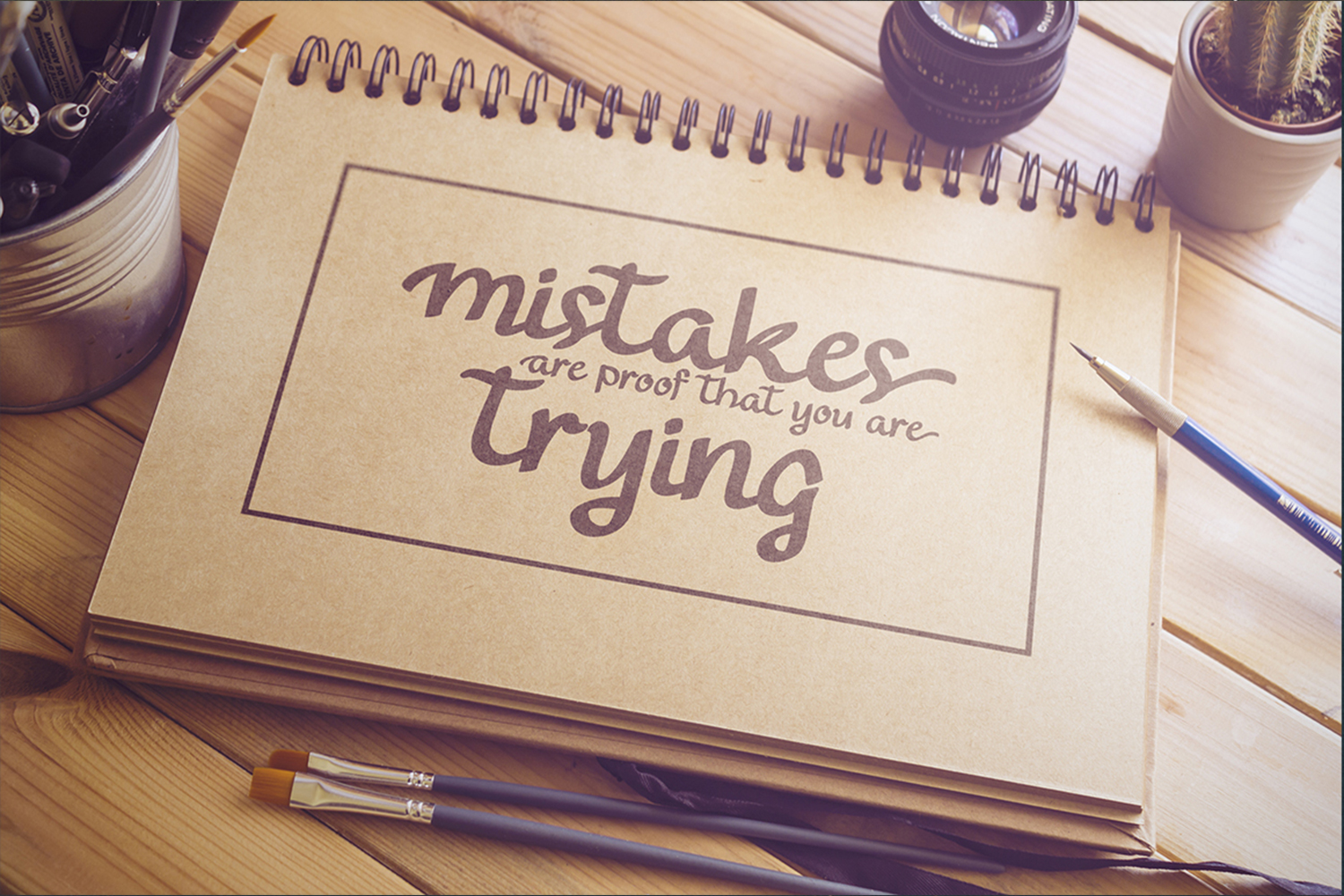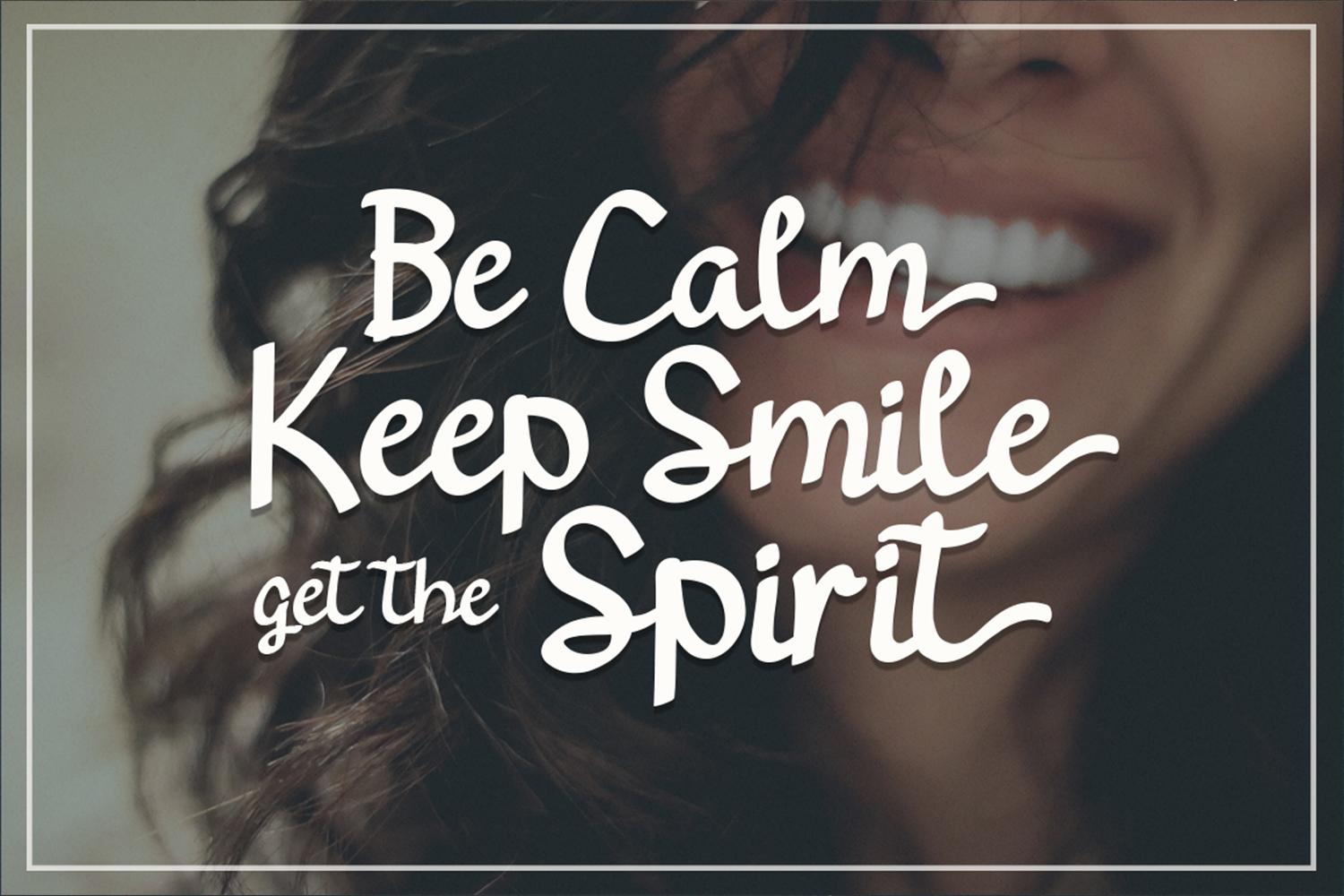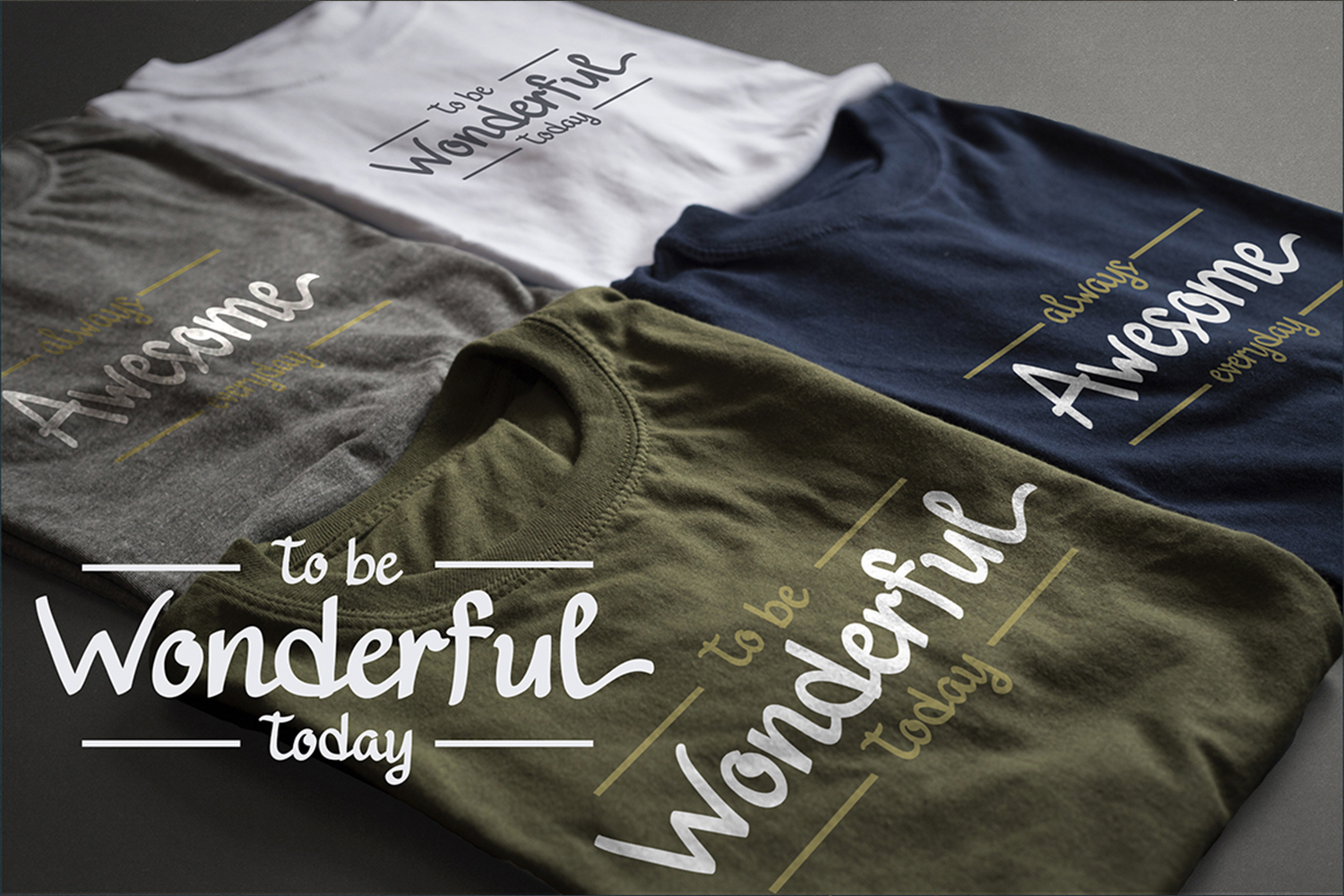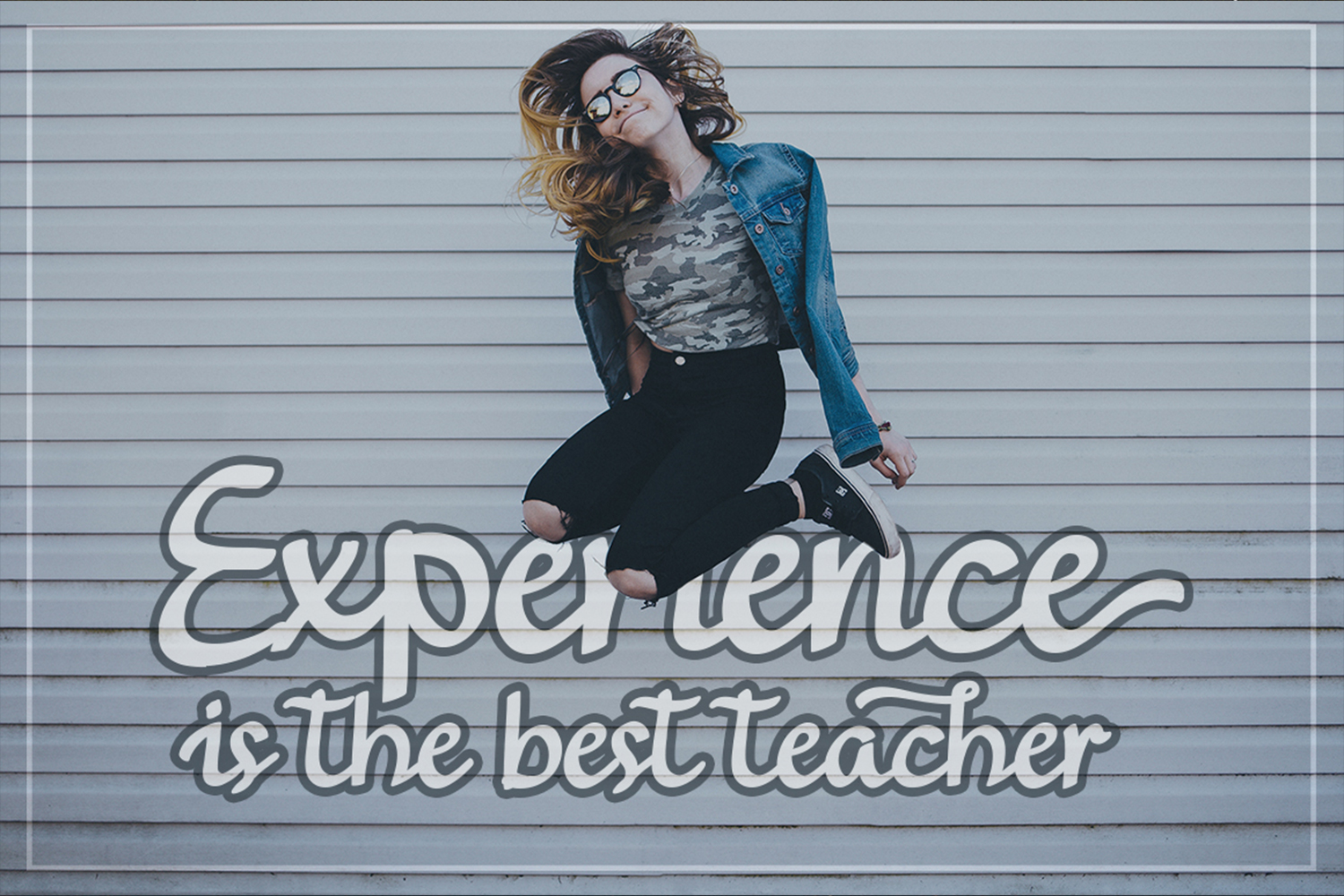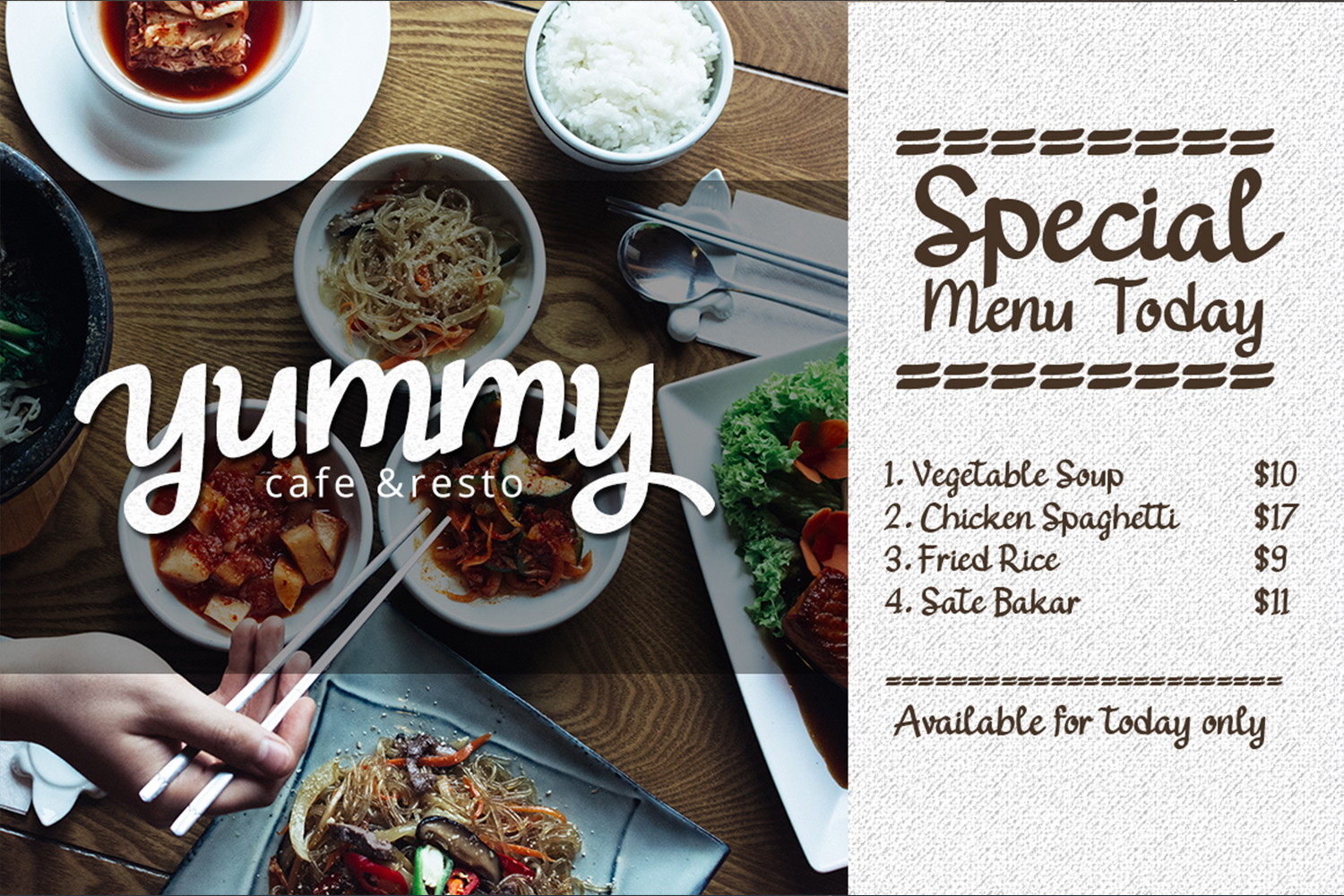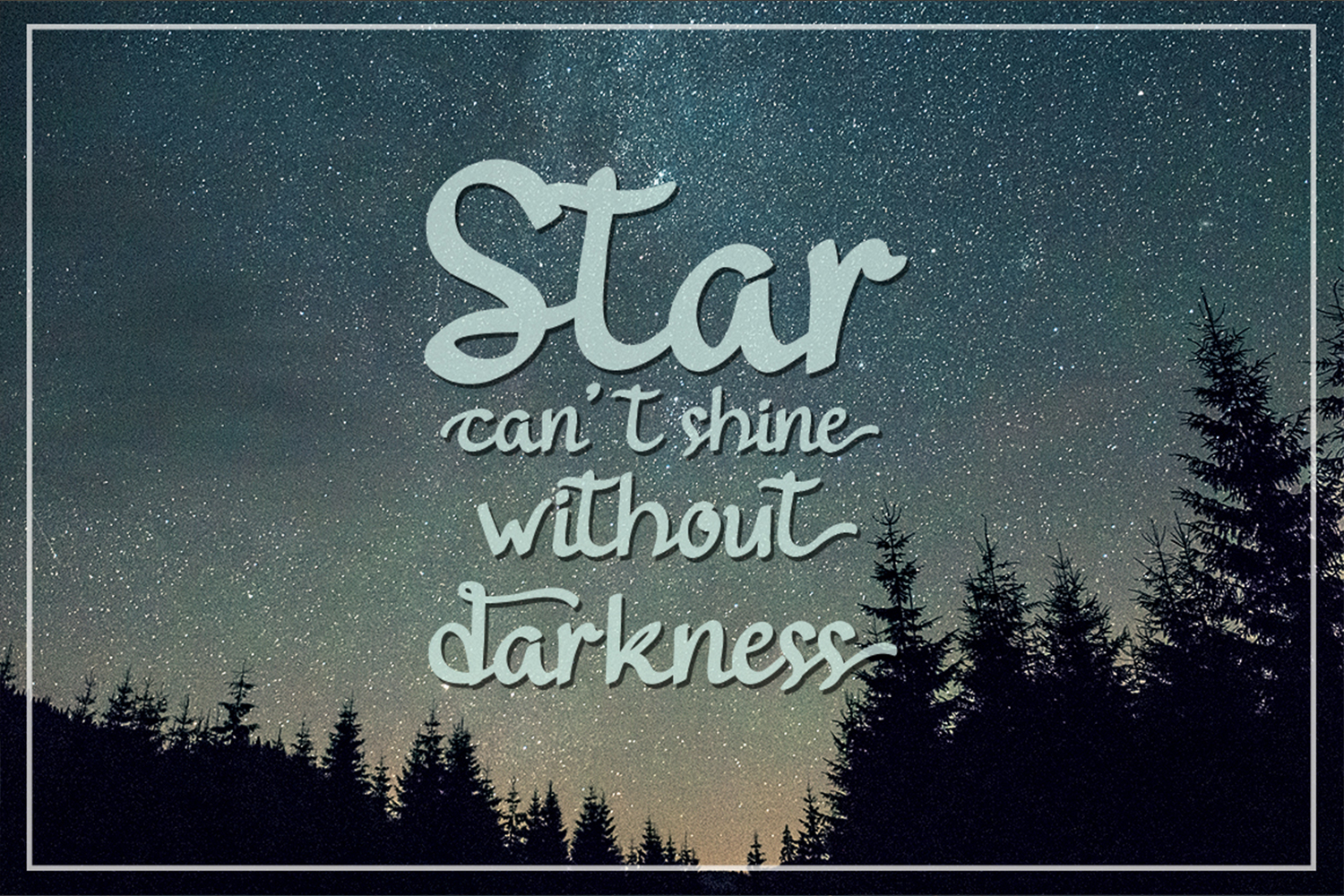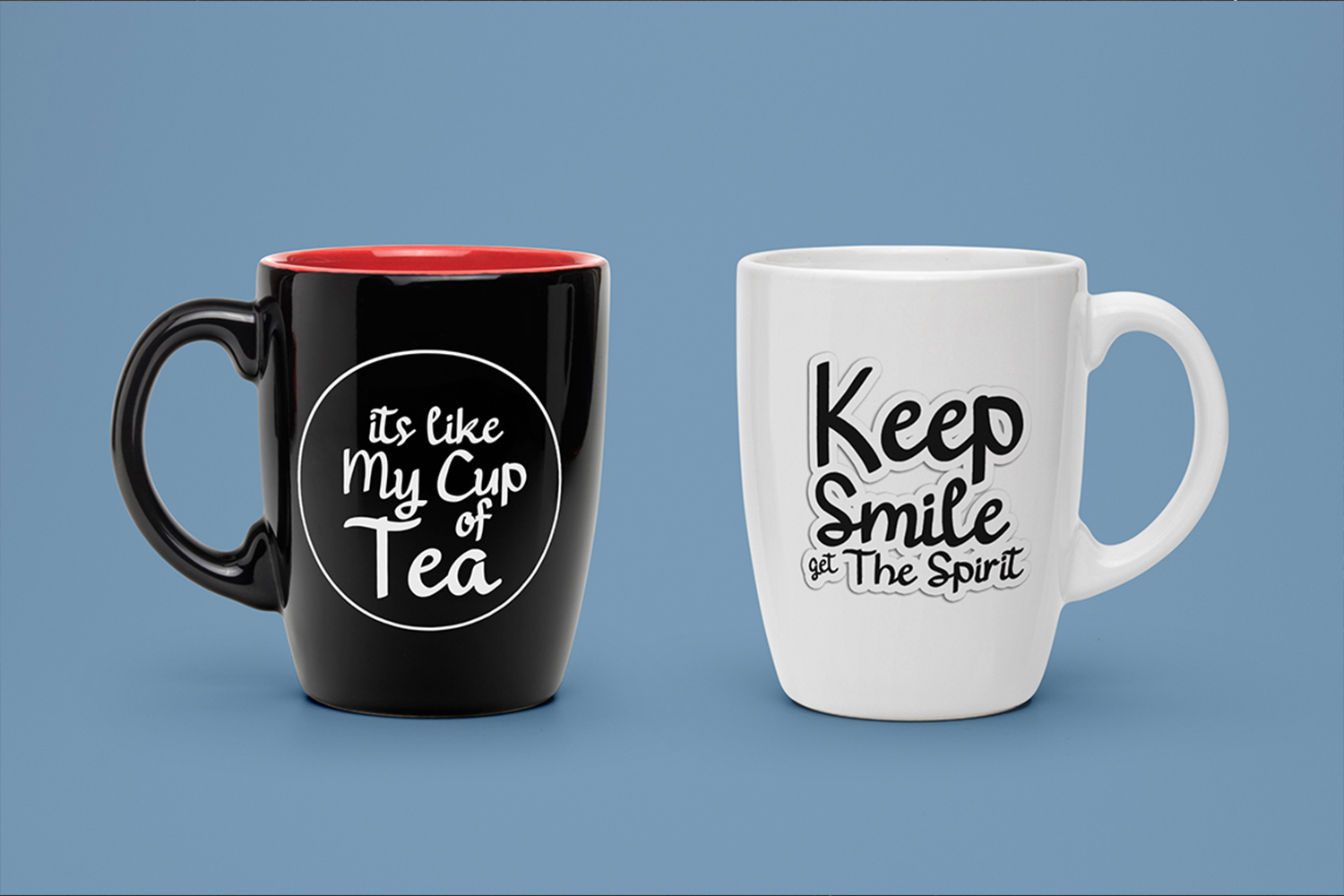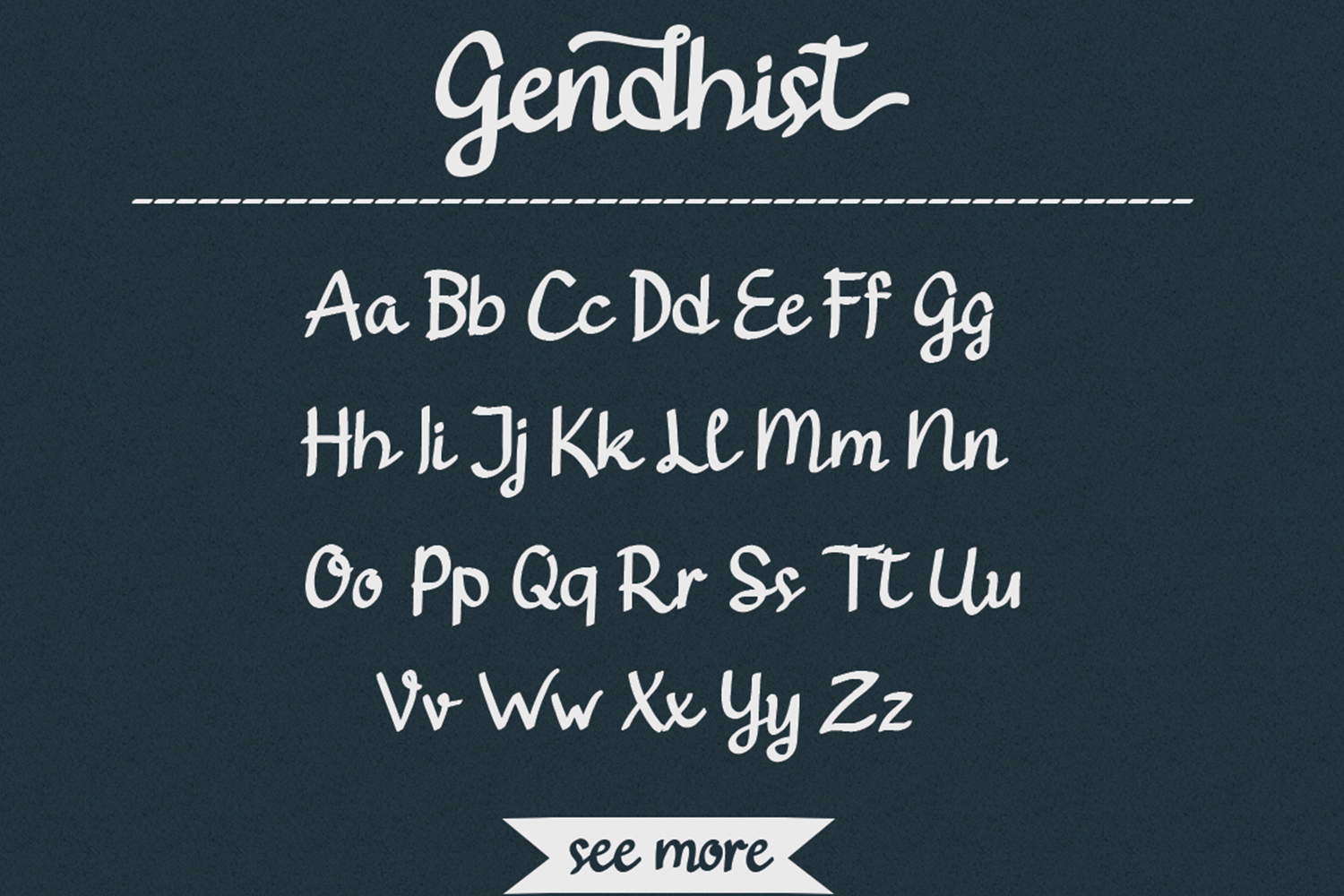
Gendhist Font
About Gendhist Font
Gendhist is a super clean handwritten font.
Because of it’s thick letters it’s very expressive and works great for corporate & branding, but also for crafting (easy to cut).